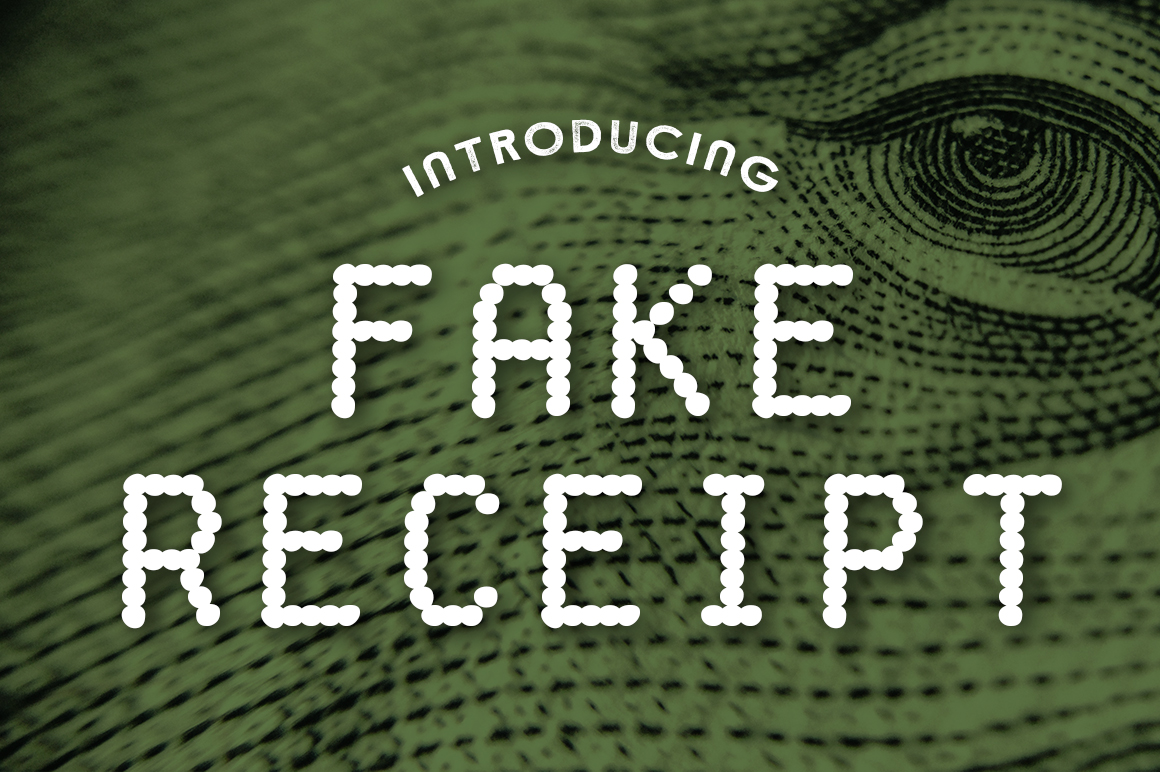
Personal Use Free Fake Receipt 0 261 FacebookTwitterPinterestWhatsApp 1 of 1 About Fake Receipt Font Want a retro vibe? Fake Receipt is a free font that resembles print from a typical, late 20th Century cash register. This bitmap, lo-fi font is a great font by Typodermic. DOWNLOAD NOW